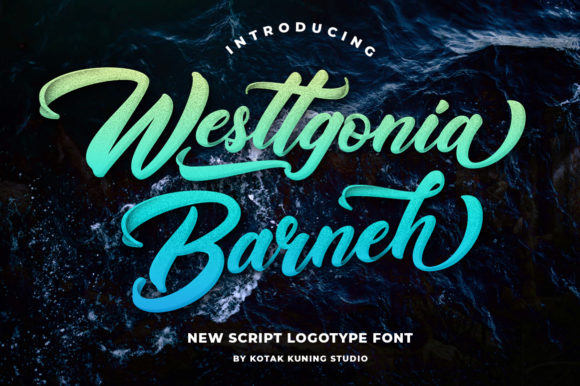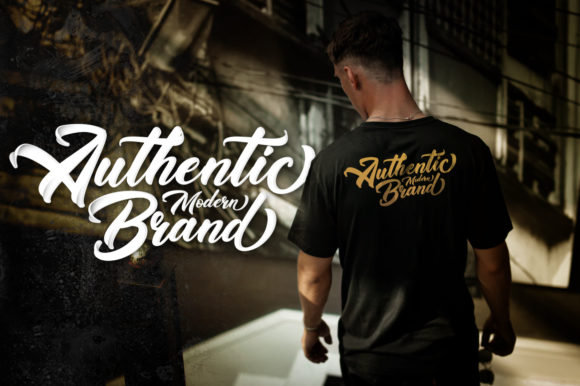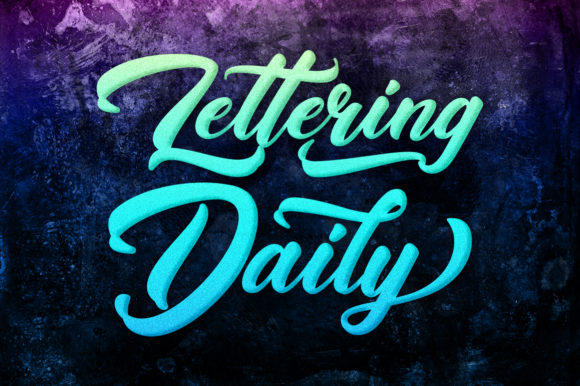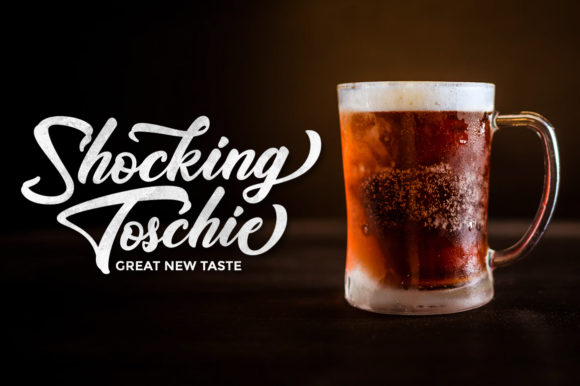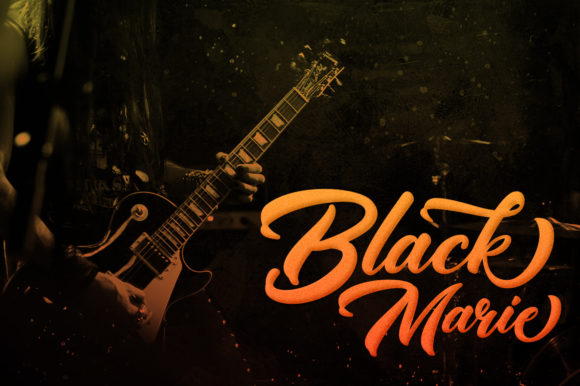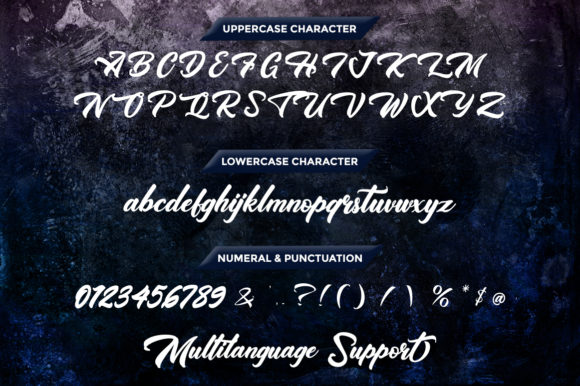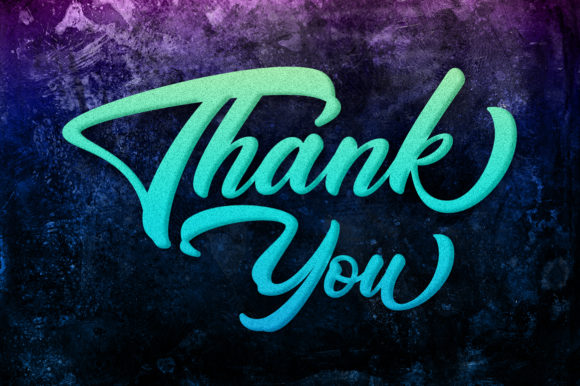
Westtgonia Barneh Font
Westtgonia Barneh is a stunning and fun handwritten font with a powerful vibe. It will turn any design project into an eye-catcher!